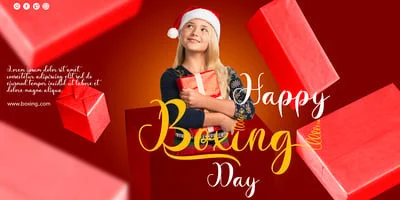
Christmas Glitter Font
Christmas Glitter Font is perfect for holiday greeting cards, festive party invitations, Christmas marketing campaigns, seasonal retail displays, winter celebration posters, holiday event branding, yuletide packaging designs, New Year's Eve graphics, seasonal social media content, and magical winter wonderland promotions. This sparkling typeface brings enchanting holiday magic and joyful celebration to projects requiring festive charm and seasonal spirit.
What makes Christmas Glitter Font exciting is its magical ability to capture the sparkling wonder and joyful anticipation of the holiday season through shimmering letterforms that seem to dance with the warmth of twinkling lights and falling snow. The font features glittering character details with festive embellishments and celebratory flourishes that evoke the excitement of gift-giving, family gatherings, and holiday traditions. Its enchanting design elements reflect the joy, generosity, and magical atmosphere that make Christmas the most wonderful time of year, making it perfect for brands seeking to spread holiday cheer and seasonal happiness.
Christmas Glitter Font family includes multiple festive variations such as Regular, Bold, Outline, Shadow, and Sparkle styles, along with complementary Ornamental and Snow versions. Each style maintains the font's distinctive holiday character while providing comprehensive design flexibility for seasonal branding campaigns and Christmas marketing applications that celebrate the magic of the holidays.
Whether you're creating holiday retail campaigns, designing Christmas event promotions, or developing seasonal brand materials, Christmas Glitter Font provides the magical typography needed for truly enchanting holiday communication. This font seamlessly combines festive sparkle with readable functionality, making it an exceptional choice for projects requiring both holiday magic and commercial appeal. Its carefully crafted letterforms ensure outstanding performance across holiday packaging, seasonal advertising, and digital platforms where Christmas typography creates memorable emotional connections with audiences celebrating the joy and wonder of the holiday season.